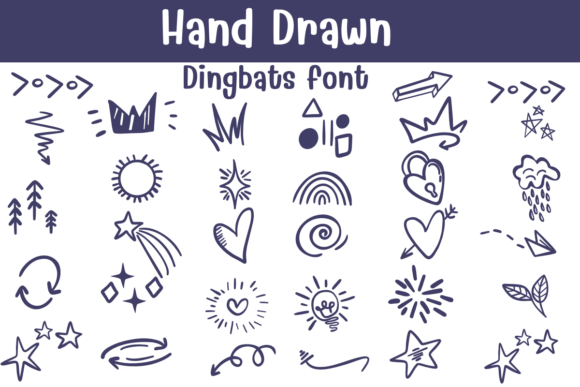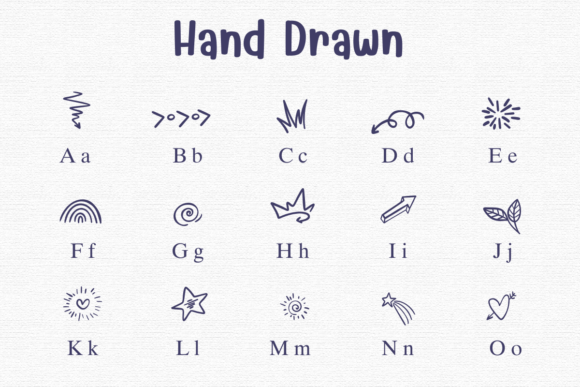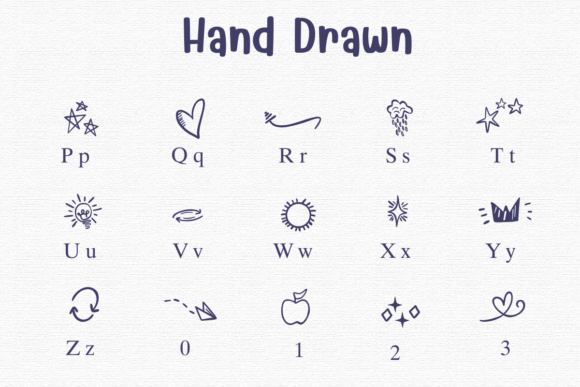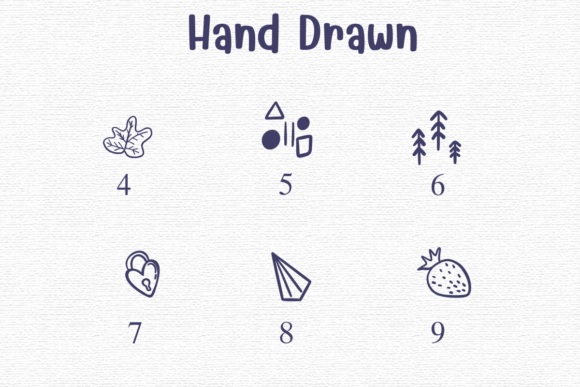
Hand Drawn Font
About the Hand Drawn Font
Meet Hand Drawn Font, a stunning font that brings a touch of elegance and professionalism to any design. Hand Drawn is a creative dingbats font filled with sketch-style elements like arrows, stars, hearts, scribbles, and swirls. These spontaneous doodles are great for decorating planners, scrapbooks, digital stickers, or social media designs with a casual, handmade flair.
Hand Drawn excels in projects requiring a lighthearted, playful touch. It’s ideal for branding focused on craft businesses, children’s products, or social media campaigns aiming for a friendly, approachable feel. Use it sparingly in headlines, short snippets of text, or as decorative elements within larger designs. Avoid using it for body text or lengthy paragraphs; its informal nature makes it unsuitable for large blocks of text.
Pair Hand Drawn with a clean sans-serif like Open Sans for readability in supporting text, or a classic serif like Garamond for a touch of sophistication. For a more modern feel, a geometric sans-serif such as Futura would create a striking contrast. Script fonts should be avoided as they would compete with the already decorative nature of Hand Drawn.
The font’s overall personality is undeniably casual and expressive, suggesting a handmade, charming aesthetic. Its best application is as an accent, adding a touch of whimsy and personality to larger designs, rather than acting as a primary typeface.
Hand Drawn Font Usage Examples
Hand Drawn Font Example